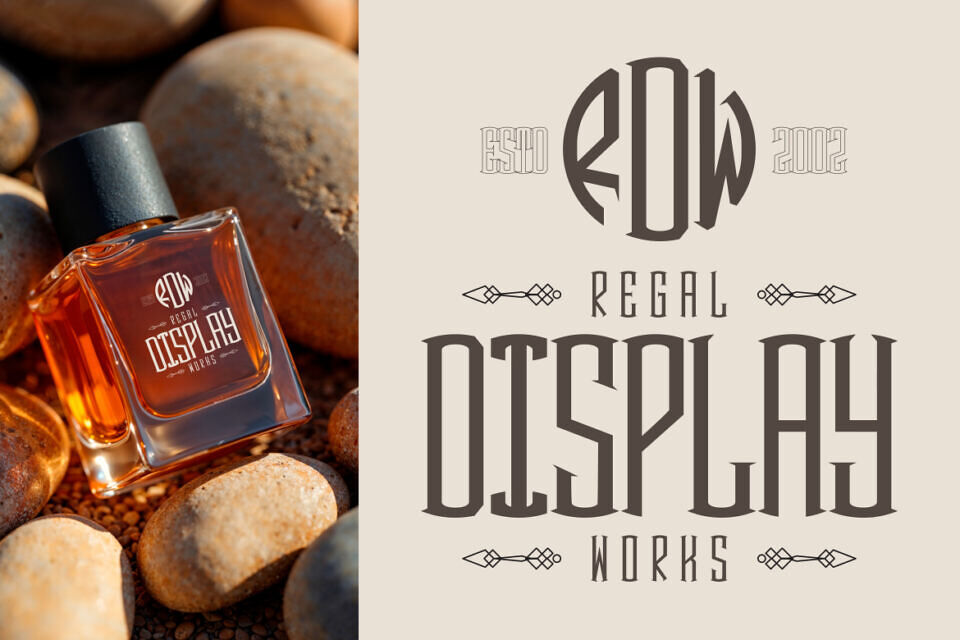
Royal Display Monogram Font
This elegant font exudes professionalism and sophistication, perfect for modern branding. Its slender, geometric design and subtle serifs create a sense of height and refinement. With a mix of thin and medium strokes, it blends art deco influence with classic style. The result is a commanding, compact font ideal for monograms, initials, and logos that convey authority and prestige, combining timeless craftsmanship with a modern edge.
This font is perfect for creating luxury branding identities, packaging, invitations, posters, and editorial layouts. Its refined structure enhances readability while maintaining an exclusive appearance that stands out in print or digital design. Royal Display Monogram Font works beautifully for logos, certificates, name cards, and high-end labels where tradition meets modernity.